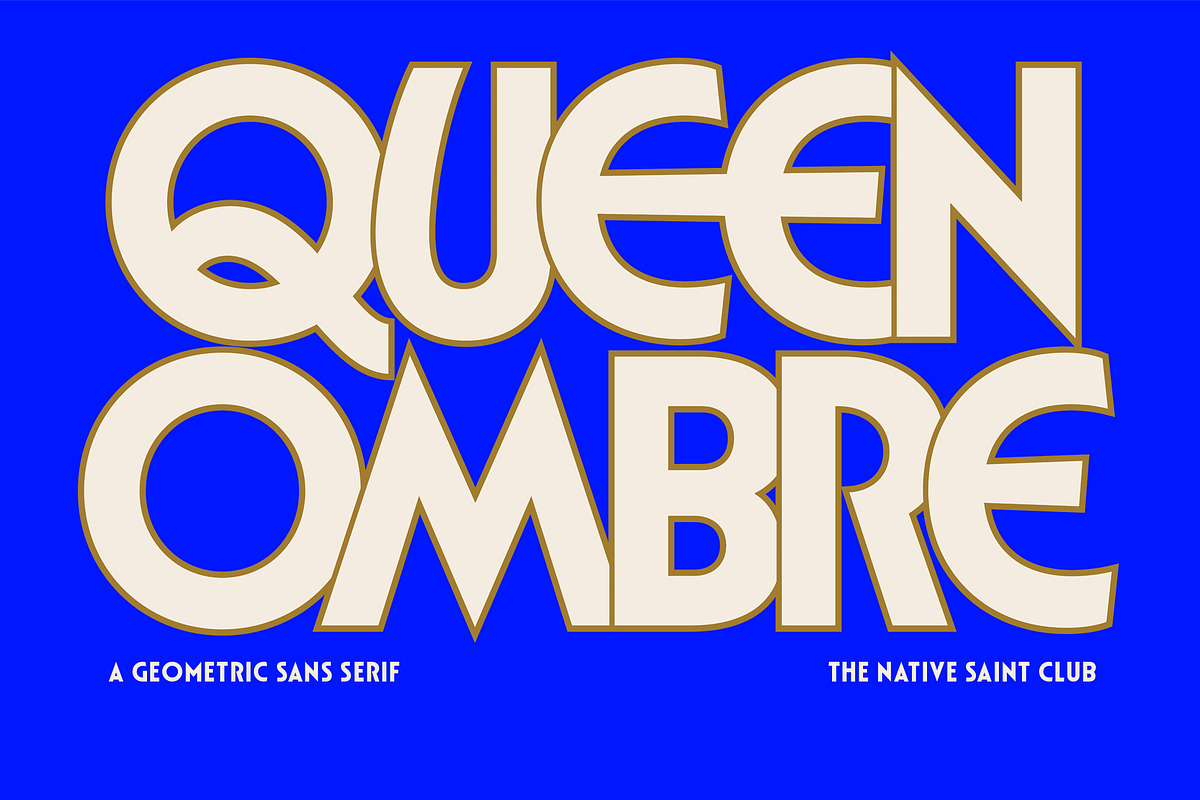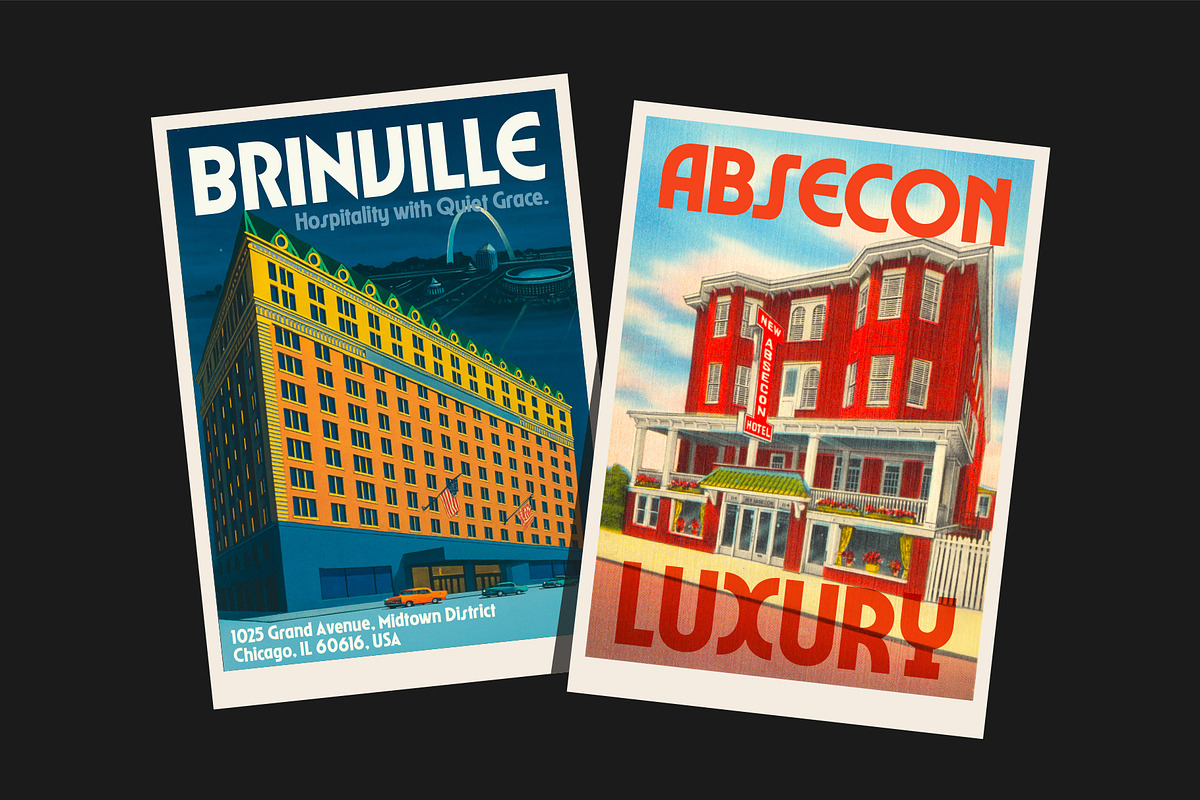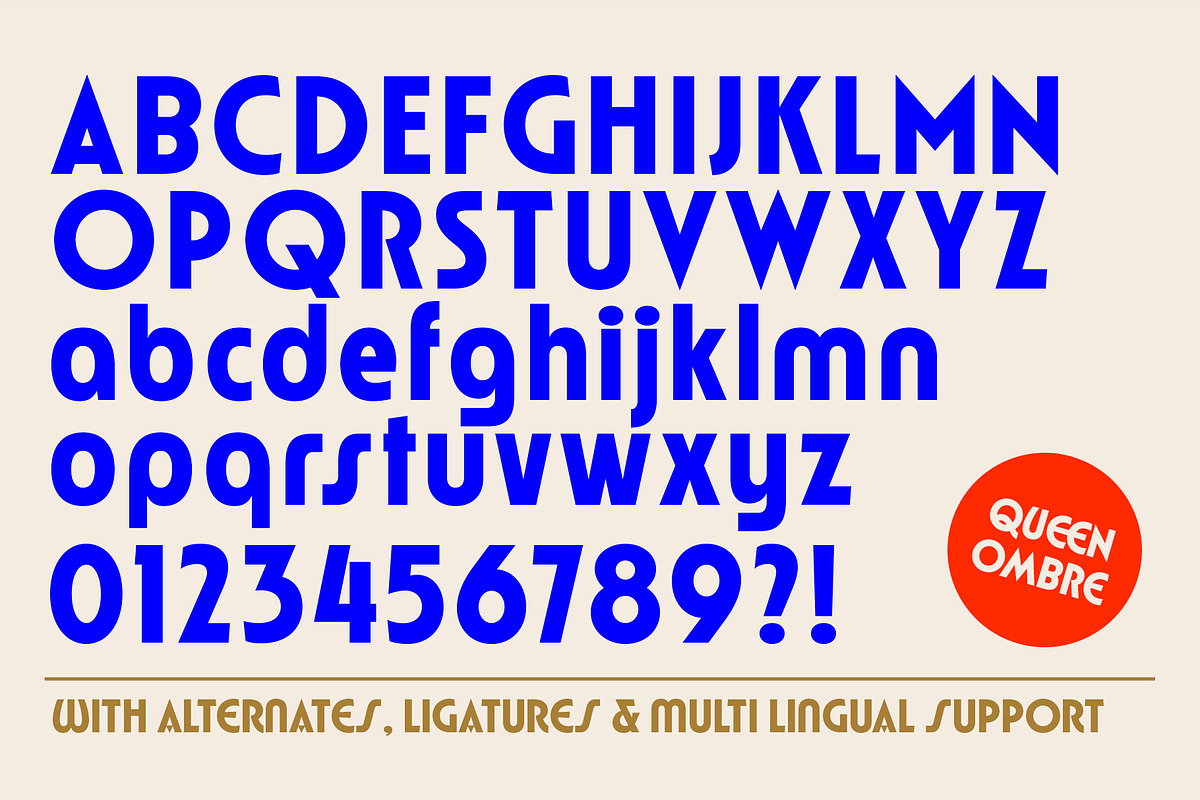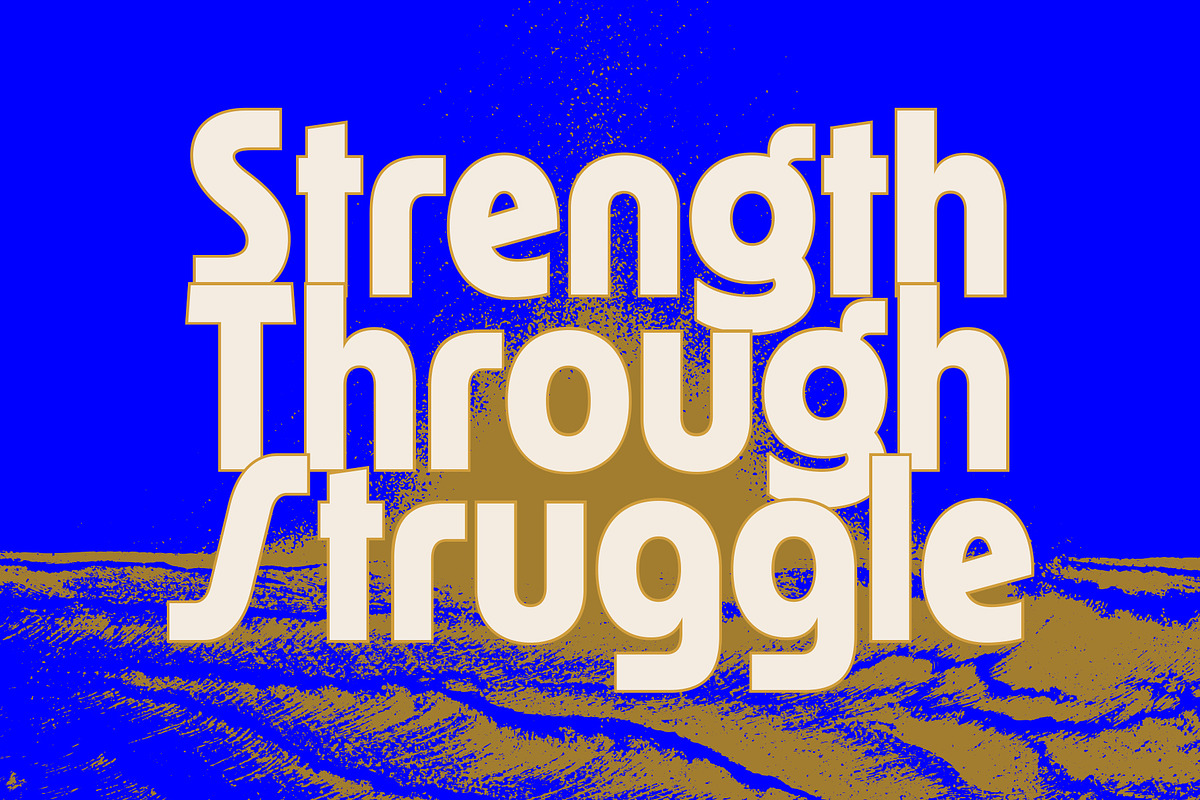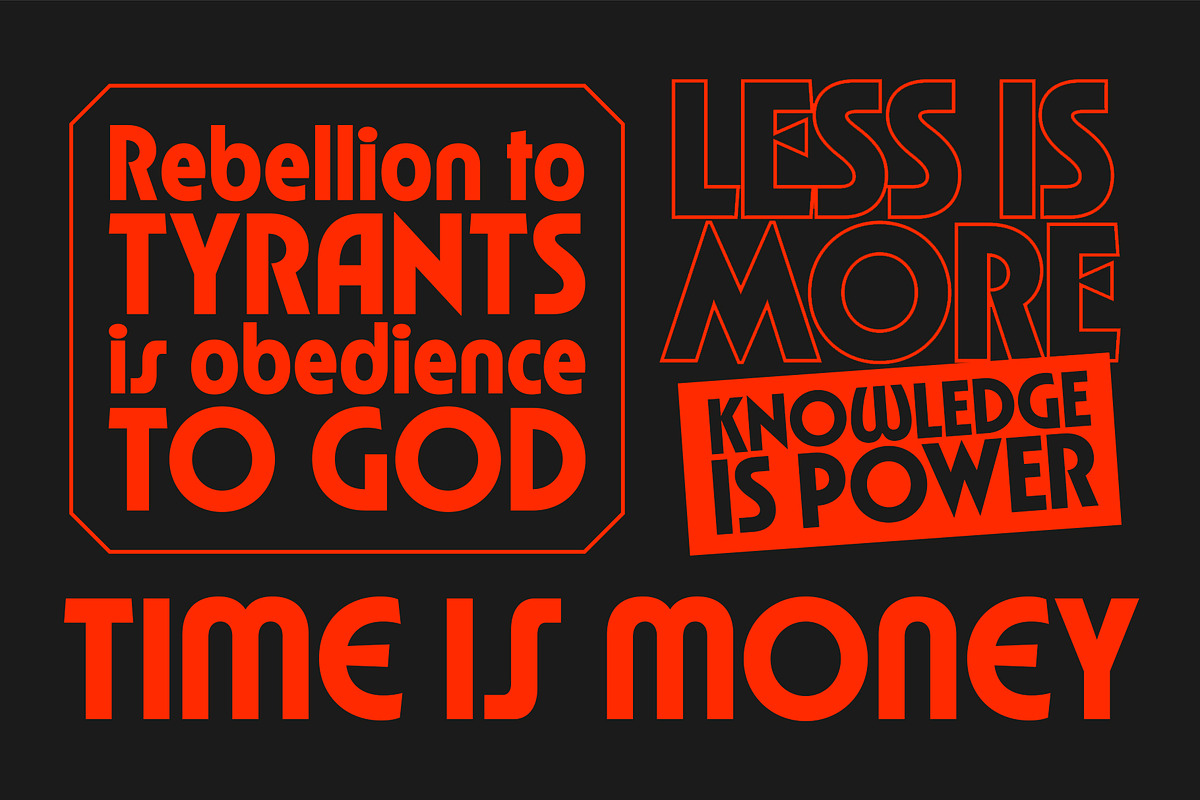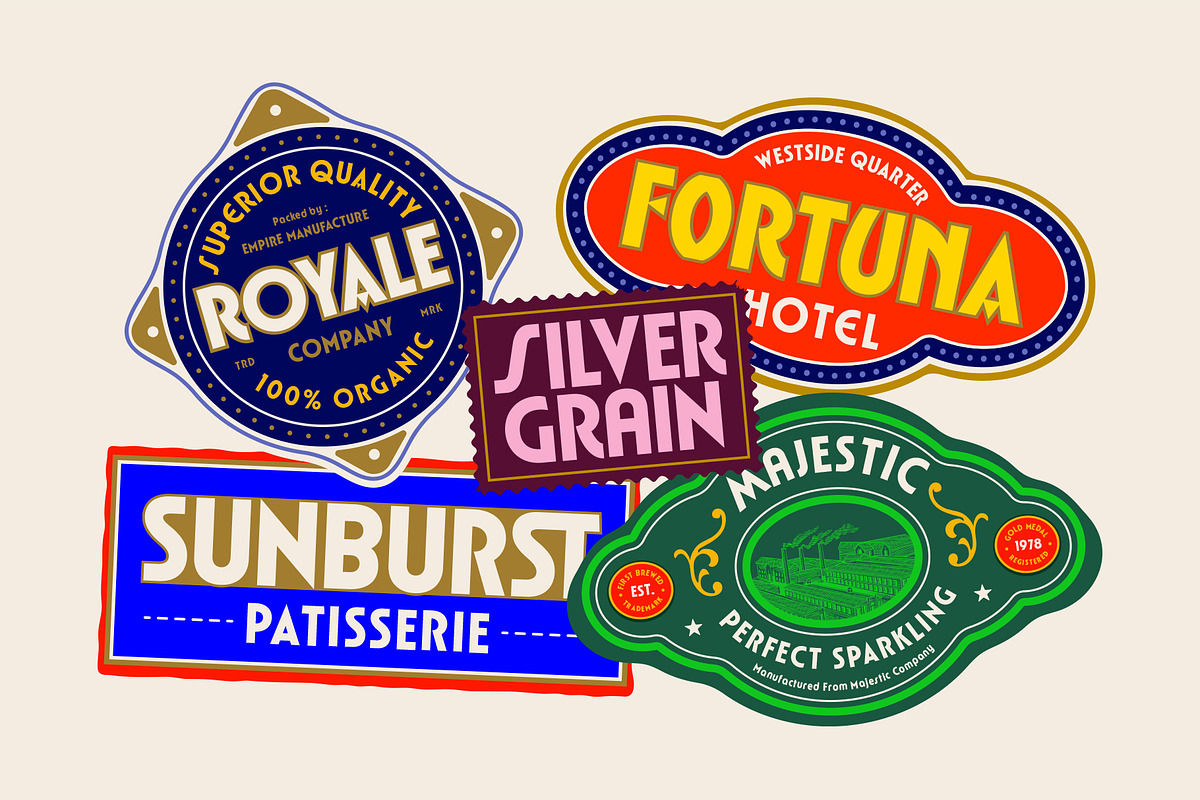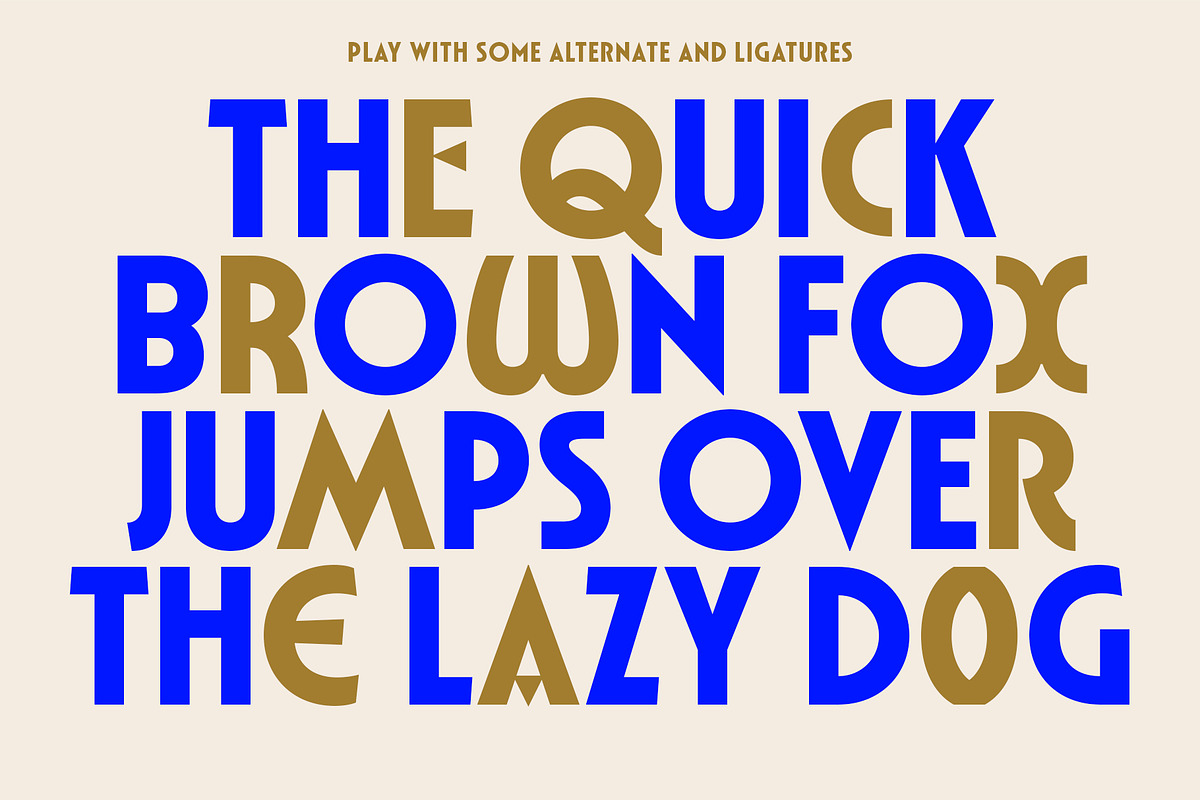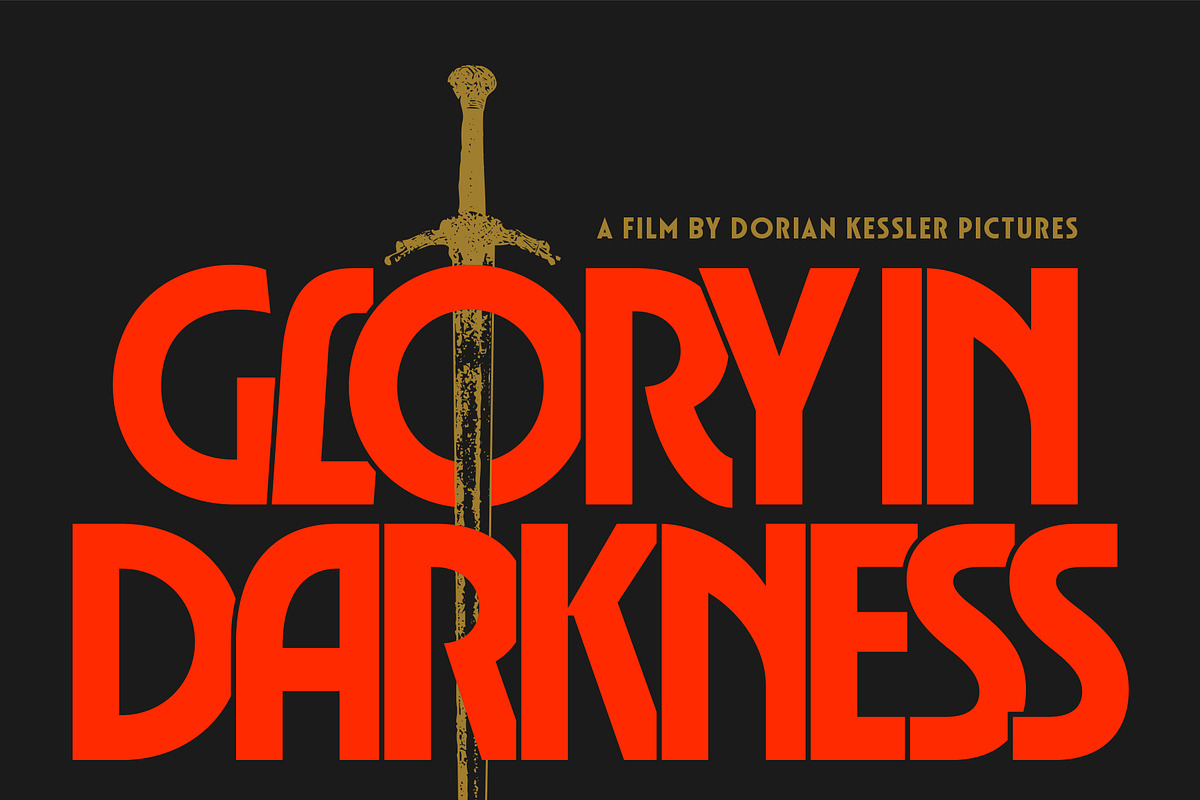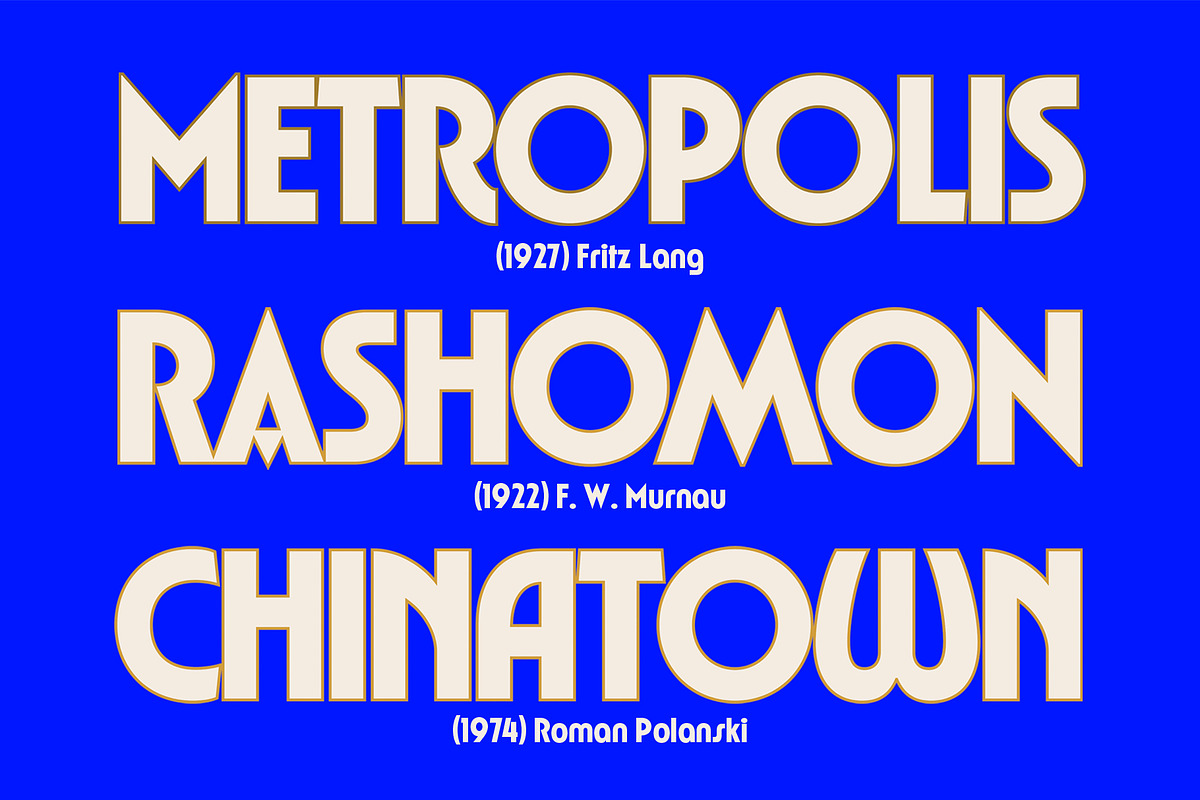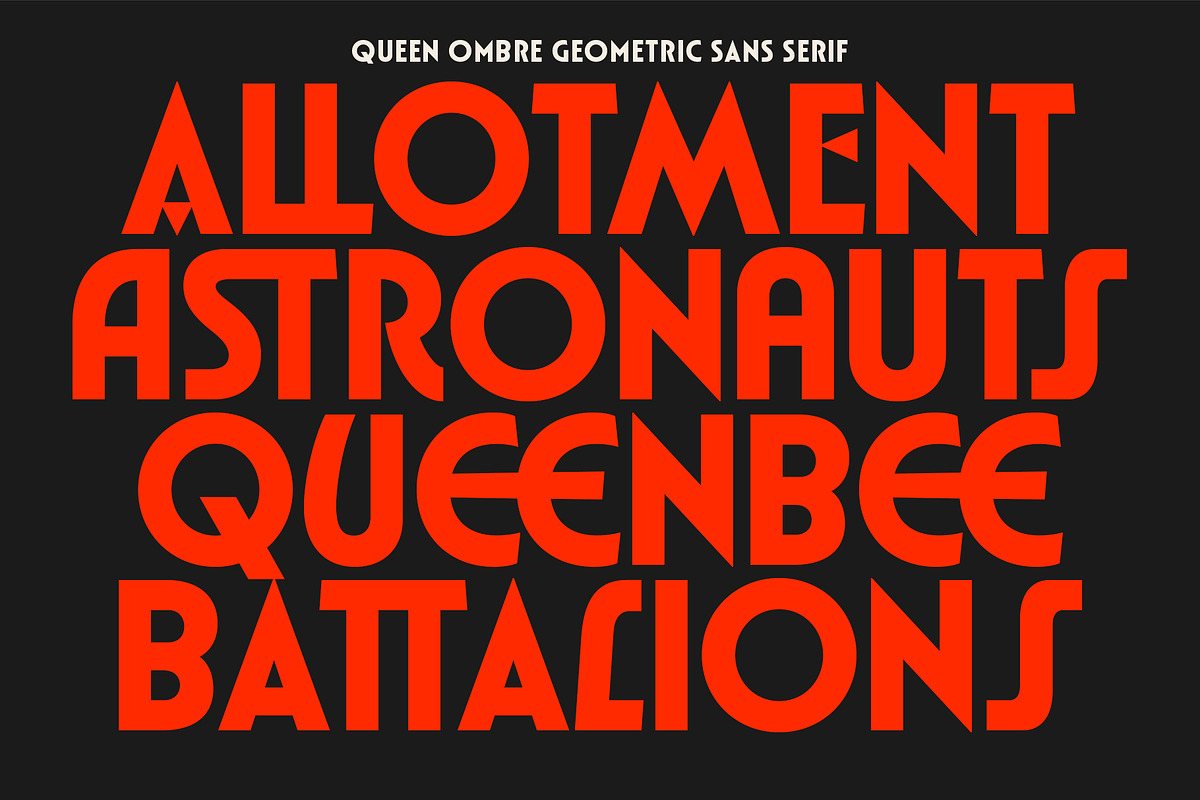
TNSC Queen Ombre - Geometric Sans
TNSC Queen Ombre is a bold and stylish geometric sans serif designed to bring a modern yet timeless touch to your creative projects. With its strong letterforms, unique alternates, and playful ligatures, this typeface balances retro charm and contemporary elegance. Perfect for branding, logos, posters, packaging, magazine headlines, social media graphics, and more.